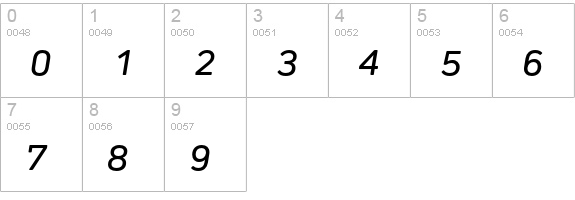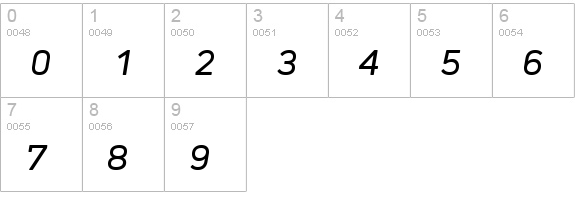
Kiro Italic is a distinctive, italic variant in the Kiro typeface family \xE2\x80\x94 well suited to design and typography projects.
Kiro Italic font is a stylish and modern typeface that exudes elegance and sophistication. With its sleek lines and graceful curves, this font is perfect for adding a touch of class to any project. The italicized design adds a sense of drama and flair, making it ideal for use in headings, titles, and other display text. What sets Kiro Italic font apart is that it is not only beautiful but also free to download. That's right, you can get your hands on this stunning font at no cost! Simply head over to FontsMarket.com to access this gem and elevate your designs with its timeless appeal. Whether you're working on a branding project, a website design, or any other creative endeavor, Kiro Italic font will surely make a statement and leave a lasting impression.